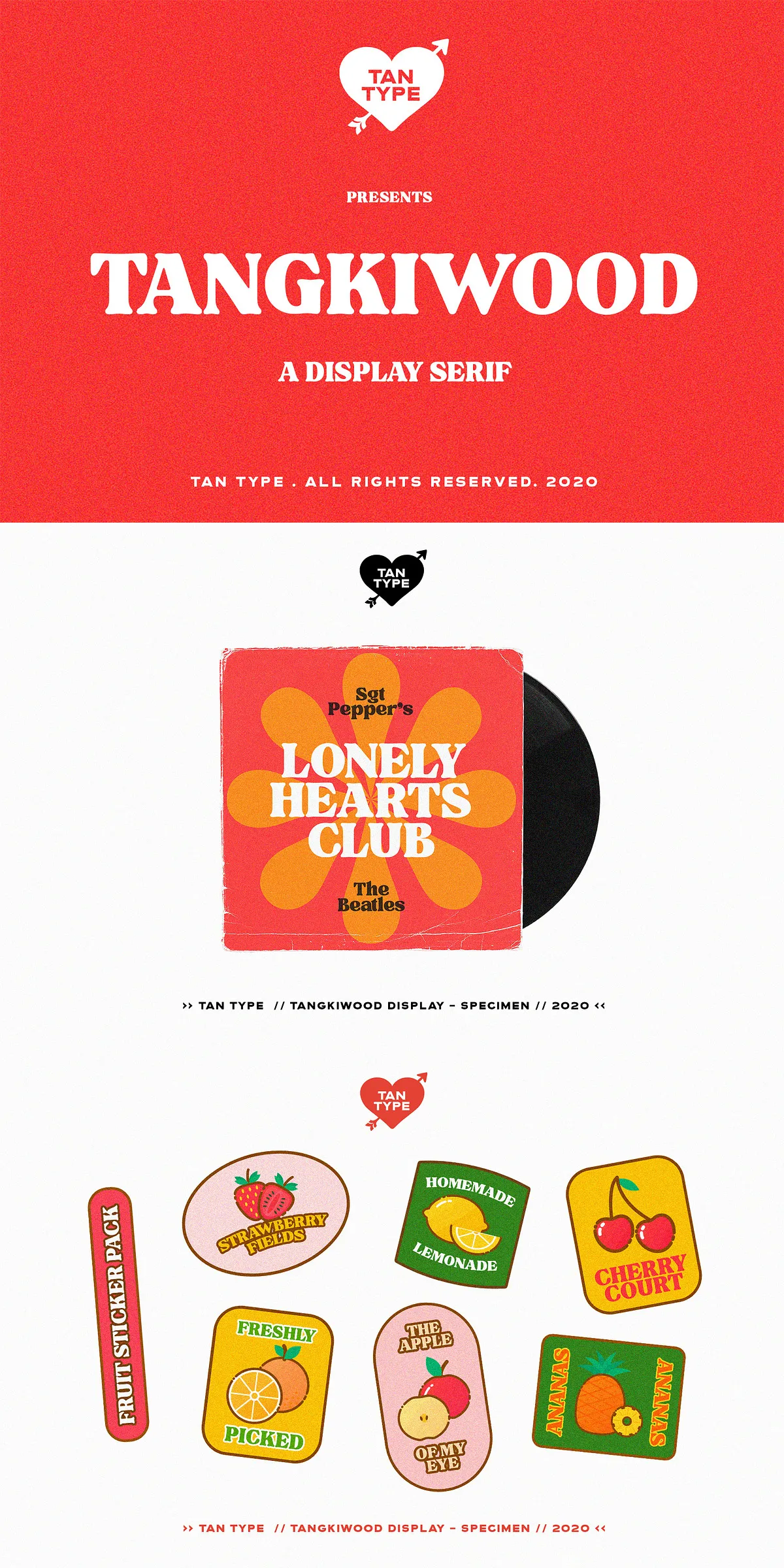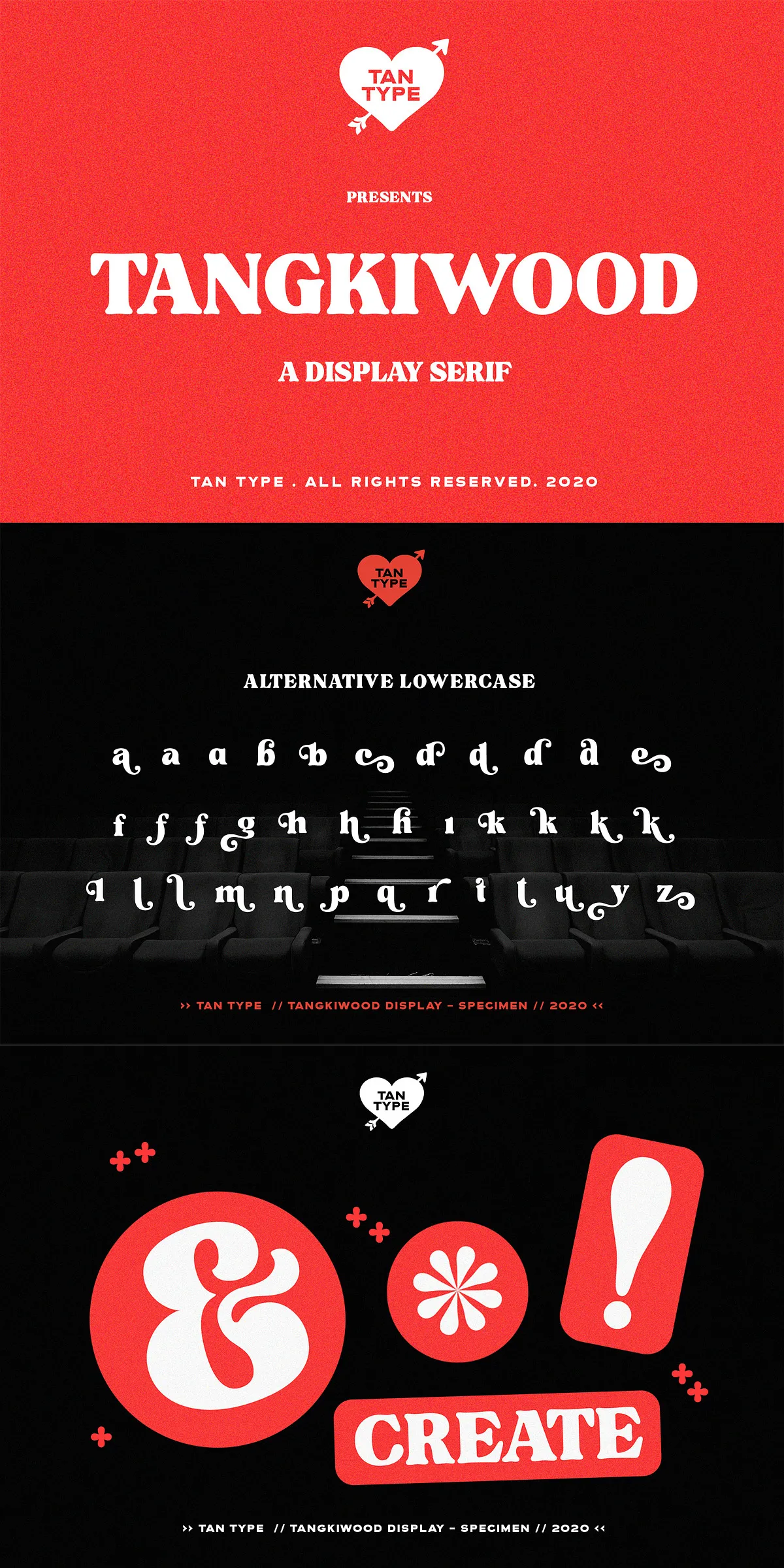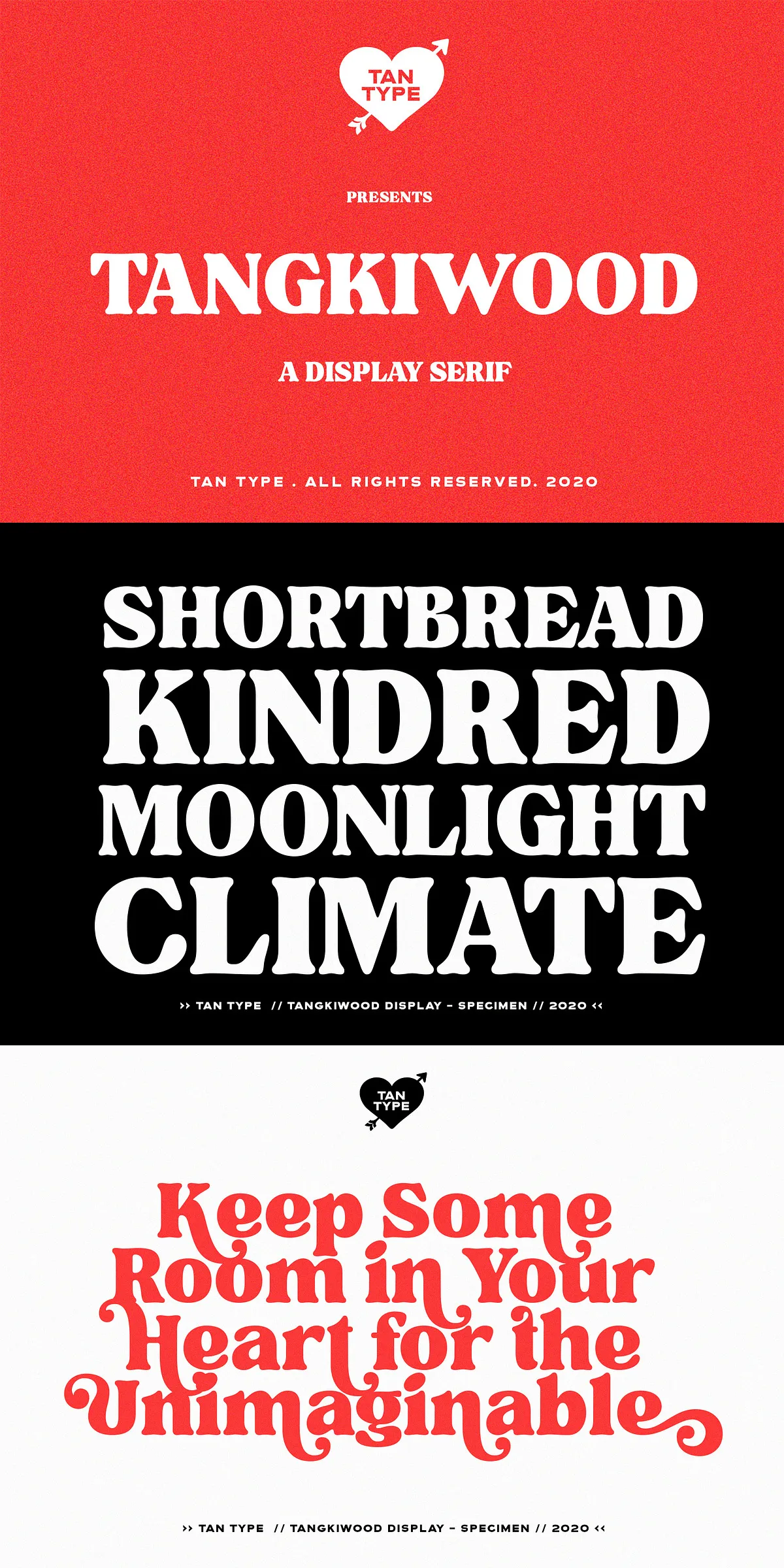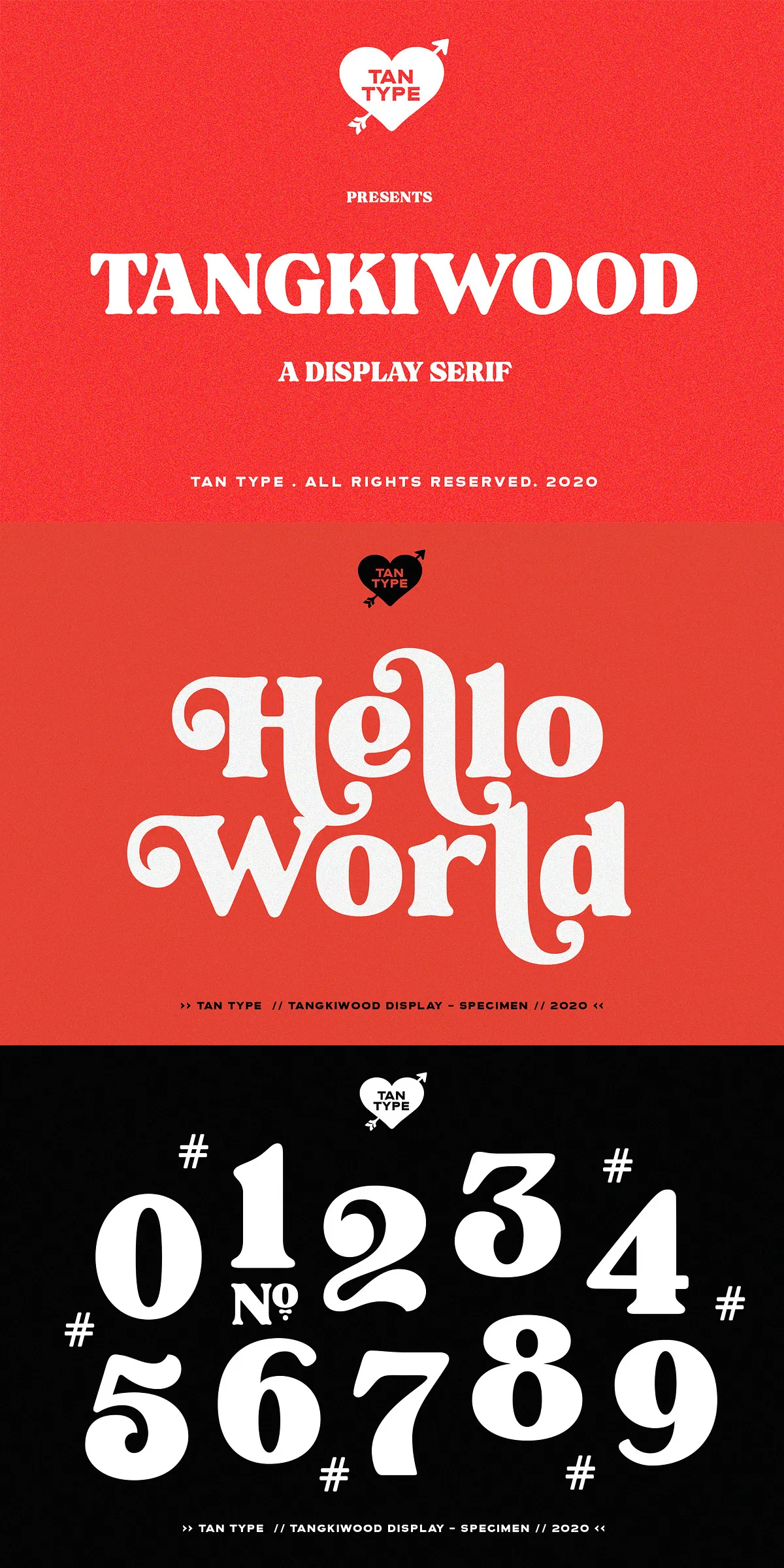
Step into the vibrant world of the 1970s with Tangkiwood—a fearless, high-impact display typeface designed for creators who dare to stand out. Inspired by the bold aesthetics and carefree spirit of the 70s, Tangkiwood brings a wave of nostalgia, energy, and personality to your projects. With its striking serif structure and dynamic character, this single-weight typeface isn’t just readable—it’s unforgettable.
Embrace the 70s Vibe with Bold Character and Playful Personality
Tangkiwood pulls from the rich visual language of the 70s—think psychedelic posters, retro album covers, and bold signage. Its distinctive letterforms are wide, assertive, and full of flair, making it ideal for any project that demands attention. Whether you’re designing a concert poster, a vintage fashion campaign, or a limited-edition product label, Tangkiwood injects instant character and attitude into your work.
- Bold Visual Impact: Every character commands the viewer’s eye with strong contrast and confident lines.
- Playful Yet Powerful: The font balances fun and seriousness—perfect for campaigns that need to entertain and persuade.
- Single Weight, Infinite Possibilities: While it comes in one solid weight, its expressive alternates open up endless creative variation.
This isn’t a font for the faint of heart—it’s for designers who want to make a powerful statement without overcomplicating their design.
Dynamic Alternates for Uppercase and Lowercase: Design Your Own Look
One of Tangkiwood’s standout features is its built-in alternates for both uppercase and lowercase letters. These stylish variants allow you to customize the look of your text with minimal effort. Swap out common letters like ‘A’, ‘O’, ‘S’, and ‘T’ for more expressive versions—think ornate serifs, swashes, or quirky forms—giving your design unique visual rhythm and personality.
- Uppercase Alternates: Transform titles and headings with more decorative, attention-grabbing character forms.
- Lowercase Alternates: Add a touch of personality to body text, quotes, or taglines.
- Effortless Integration: Use these alternates through OpenType features in your design software—no manual tweaking required.
With Tangkiwood, you’re not just selecting a font—you’re shaping a visual identity.
Modern Functionality Meets Vintage Aesthetic
Despite its retro inspiration, Tangkiwood is built for today’s demanding design workflows. It features full multilingual support, covering Latin Extended characters for Western European, Central European, and South Eastern European languages. This ensures your design remains inclusive and professional, even when used in international contexts.
Perfect for Design Projects That Demand Character
Mesveda’s expressive nature makes it ideal for a wide range of creative applications. Use it to elevate:
- Brand Identity & Logo Design: Create memorable, retro-inspired logos with a bold visual punch.
- Posters & Event Promotions: Grab attention at concerts, art shows, or festivals with eye-catching typography.
- Editorial & Magazine Layouts: Use it for covers, pull quotes, or section headers to add dramatic flair.
- Product Packaging & Labels: Give your product a vintage, handcrafted feel with a unique and playful font.
- Website Headers & Call-to-Action Text: Stand out online with memorable, expressive type that users remember.
- Social Media Graphics: Perfect for posts and stories that need to stand out in a crowded feed.
Bring the Past to Life—Design with Confidence Today
Tangkiwood is more than a font—it’s a creative spark. It’s for the designers who reject generic, bland typefaces and celebrate the power of visual storytelling. With its bold 70s energy, smart alternates, and modern technical support, Tangkiwood gives you the tools to build designs that are not just seen—but felt.